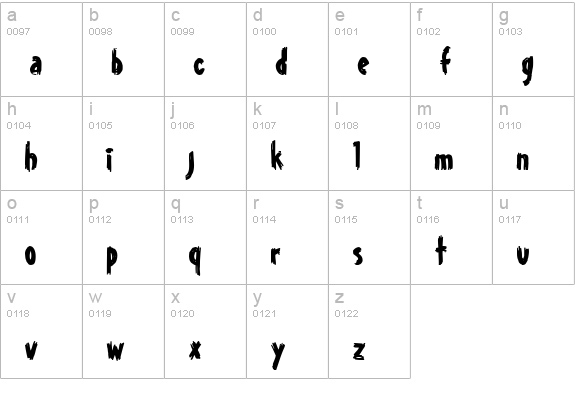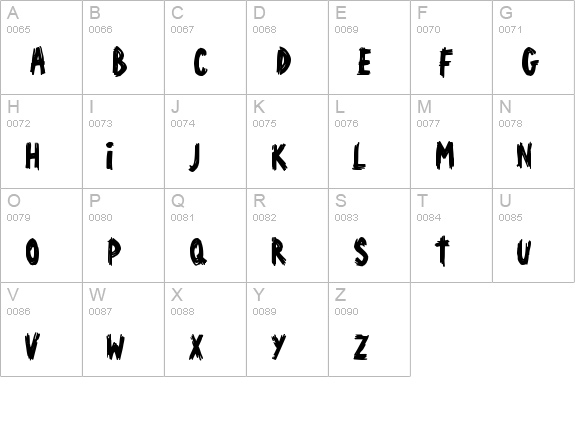
Young Itch AOE Font Details
The Young Itch AOE font is a playful and energetic typeface that exudes a youthful charm and a touch of rebellion. Its quirky and unique design features scratchy edges and irregular letterforms that give it a distinct and edgy look. Perfect for adding a fun and dynamic touch to any project, whether it's a poster, logo, or social media graphic. What's even better is that the Young Itch AOE font is completely free to download at FontsMarket.com! So go ahead and unleash your creativity with this eye-catching and bold font that is sure to make a statement. Let your designs stand out from the crowd with the Young Itch AOE font and make a lasting impression on your audience.